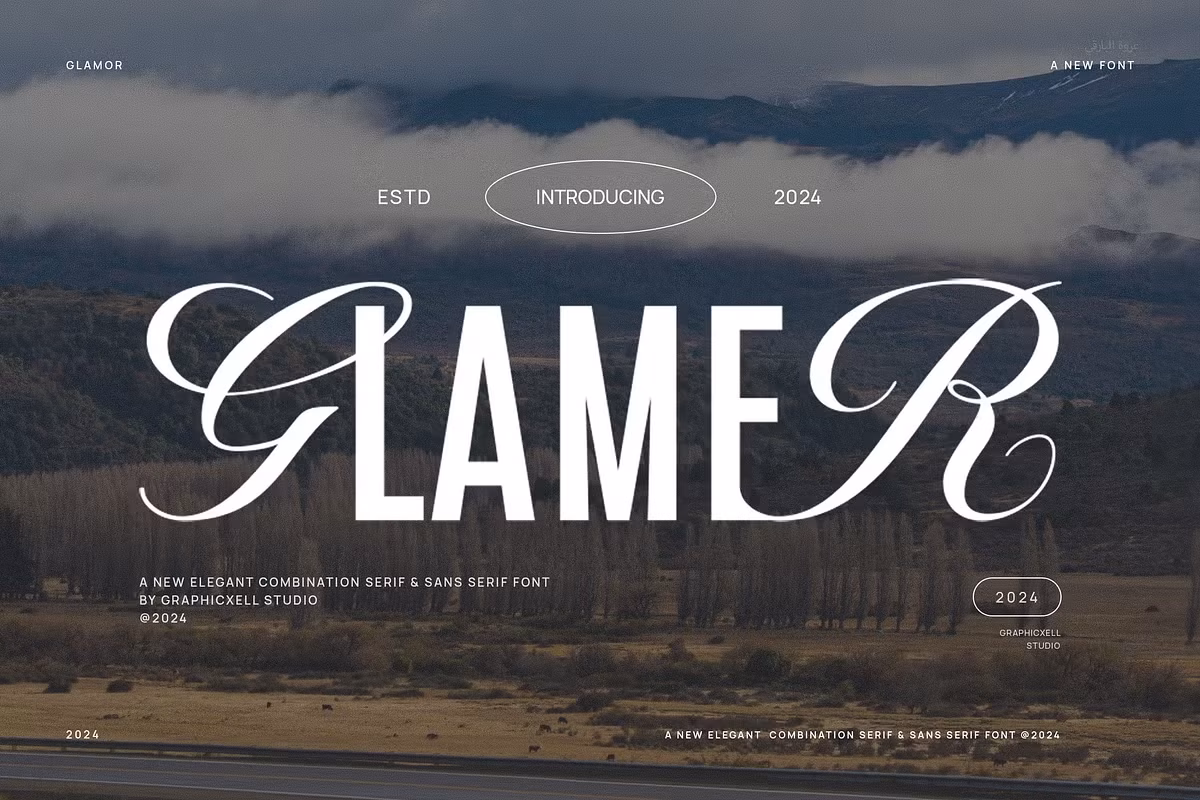
Glamer Modern Calligraphy Sans Serif Free Download
Glamer Modern Calligraphy Sans Serif Font Free Download is a chic and sophisticated typeface that blends the elegance of modern calligraphy with the clean simplicity of sans serif styling. Perfect for luxury branding, fashion magazines, social media graphics, wedding designs, and upscale packaging, Glamer delivers a graceful yet contemporary look.
Glamer Modern Calligraphy Sans Serif Font Free Download features flowing lines and subtle calligraphic accents, making it ideal for creating stylish logos and editorial headlines that stand out with finesse. Download it today and elevate your design with the modern elegance and soft charm of Glamer.